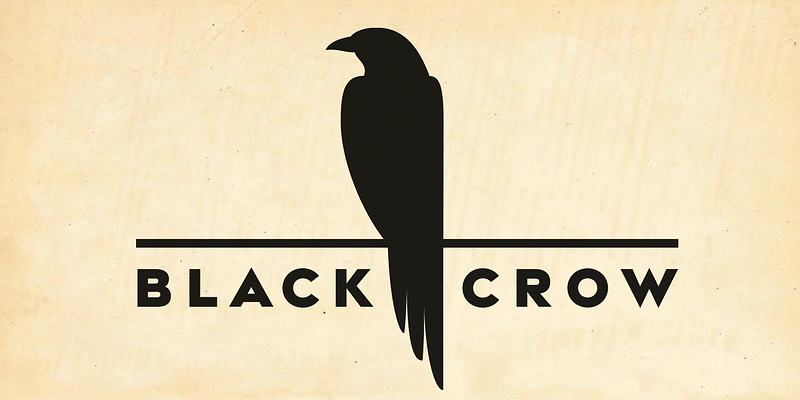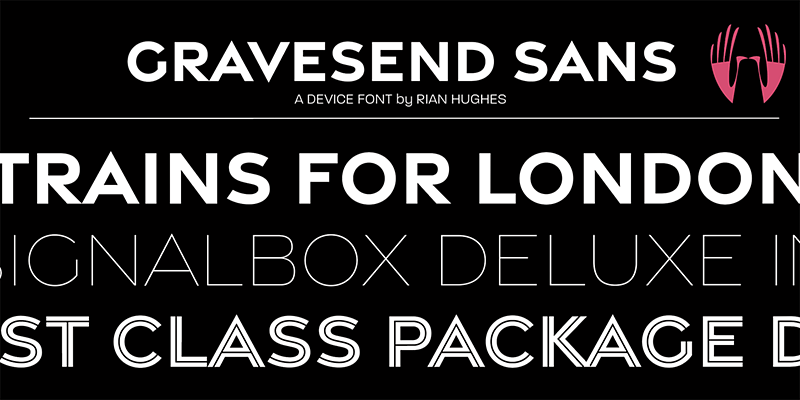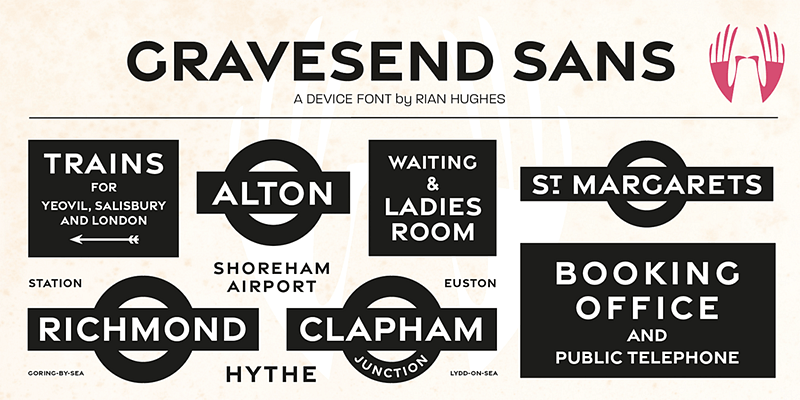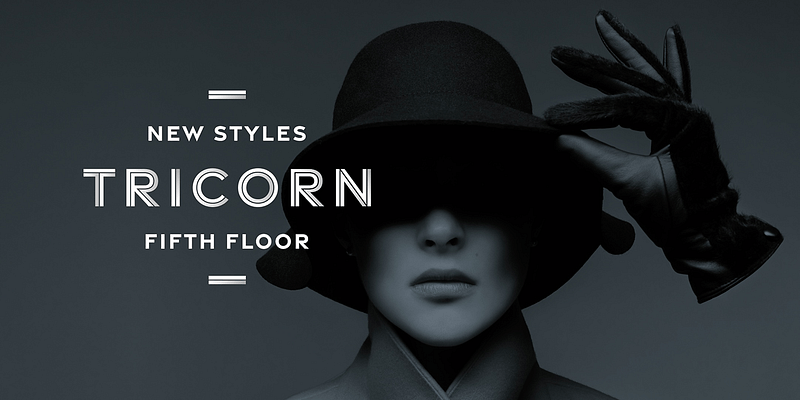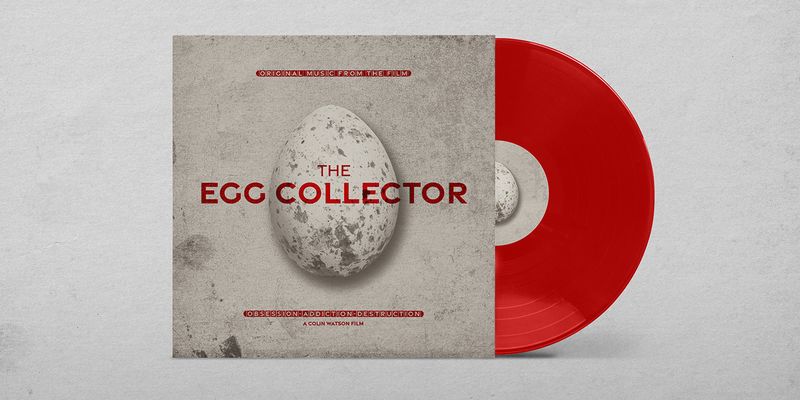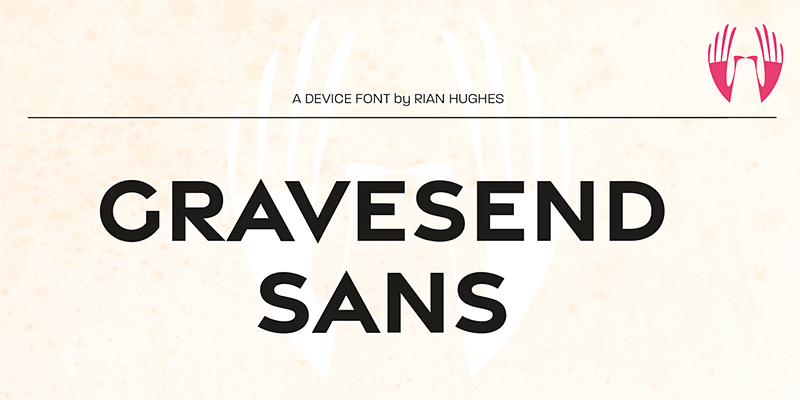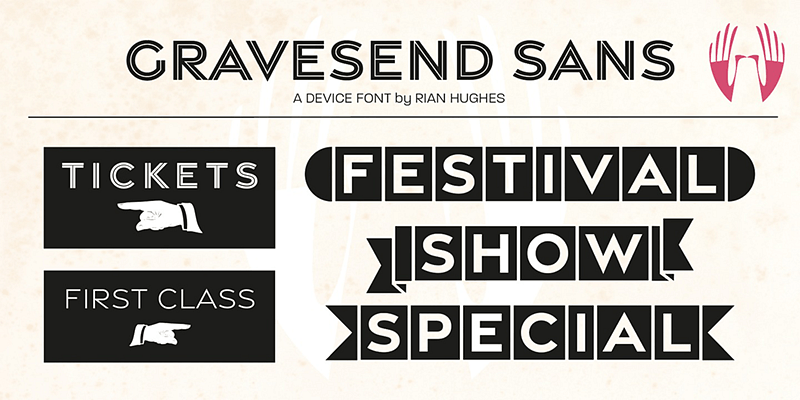
Based on vintage UK railway signage from the 20s and 30s, this caps-only font evokes elegance and tradition. The Cameo includes a selection of decorative banners, and ligatures for St, Rd, etc.
Type, design and imagery by English illustrator and typographer Rian Hughes.